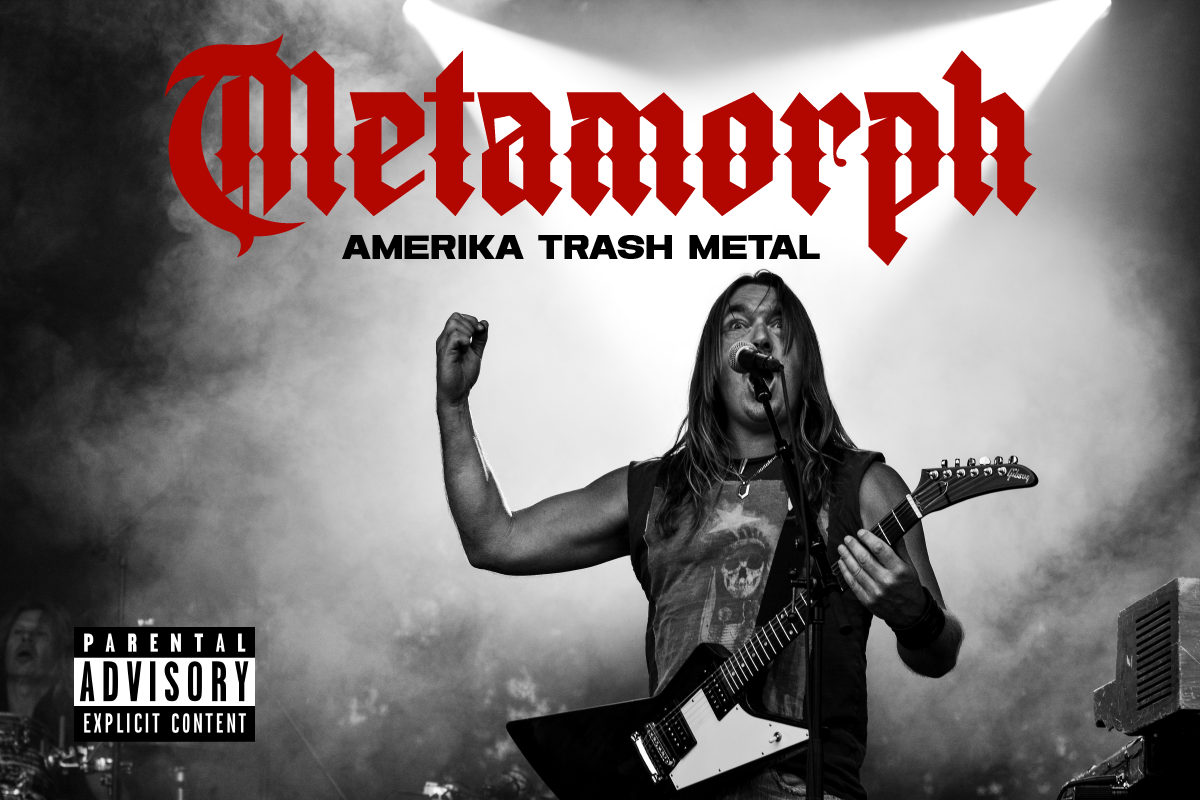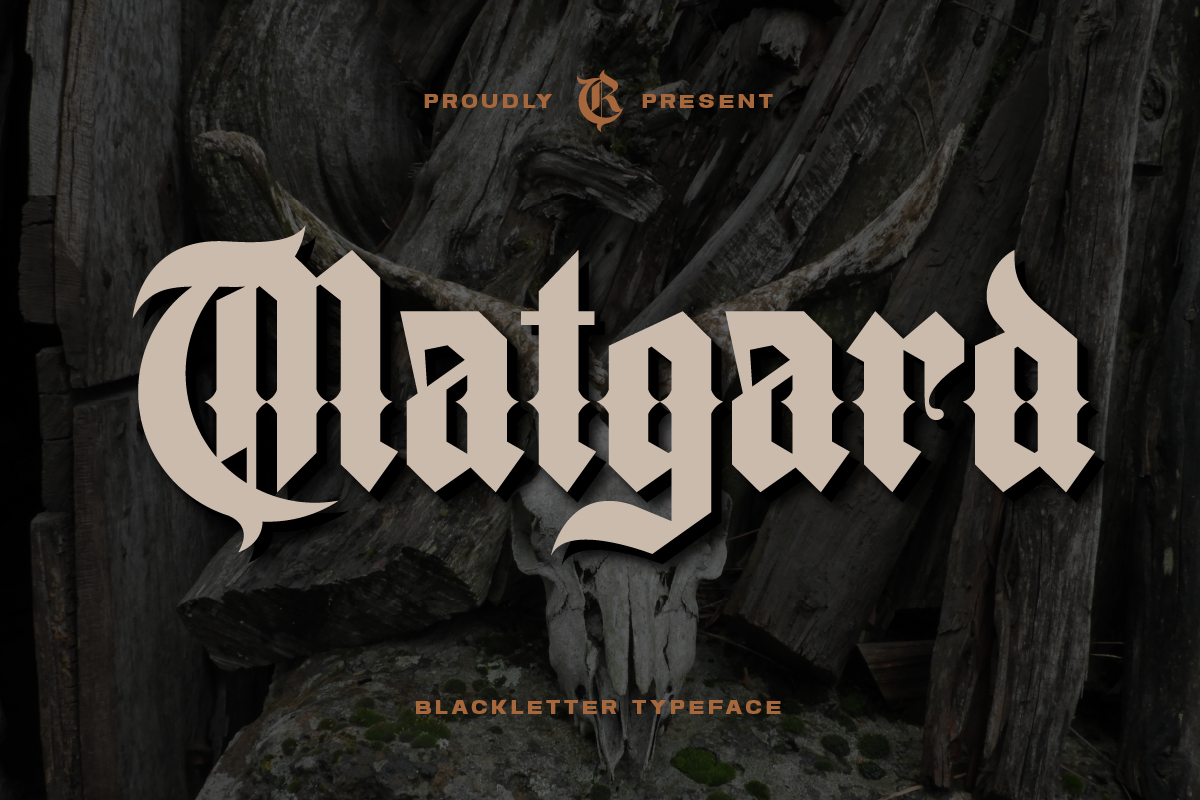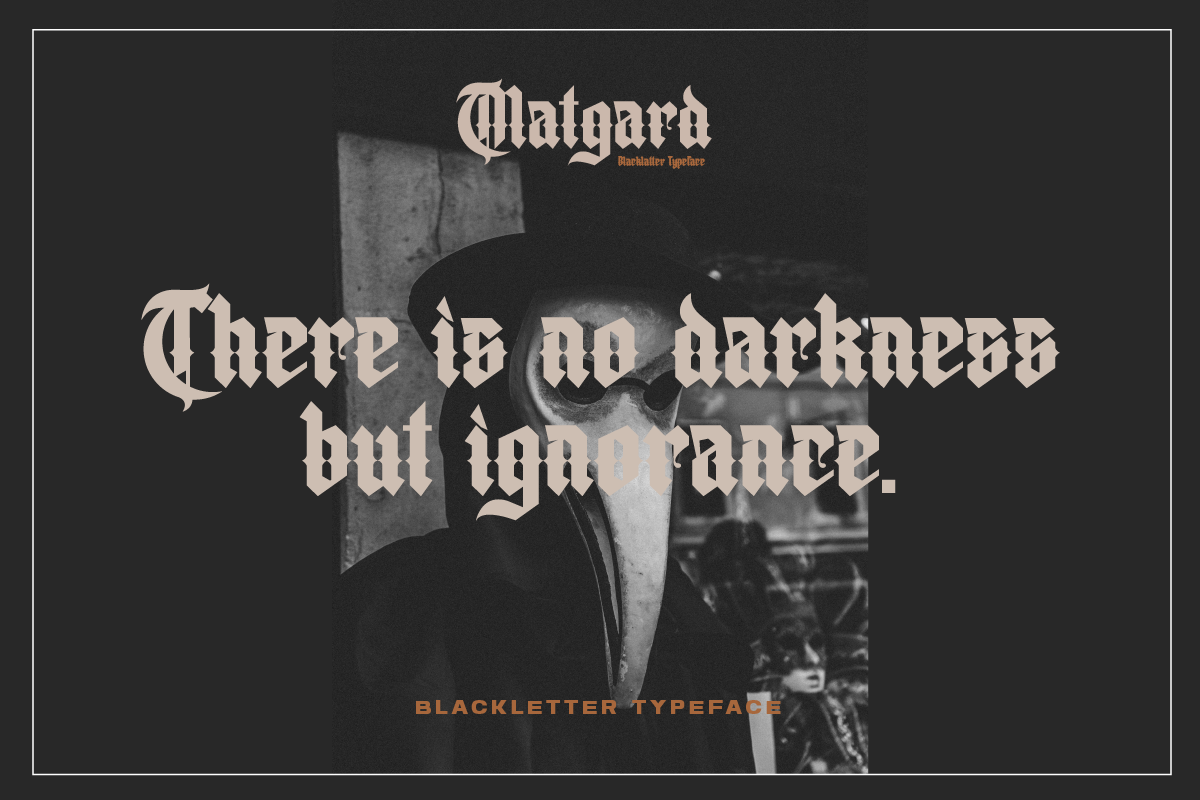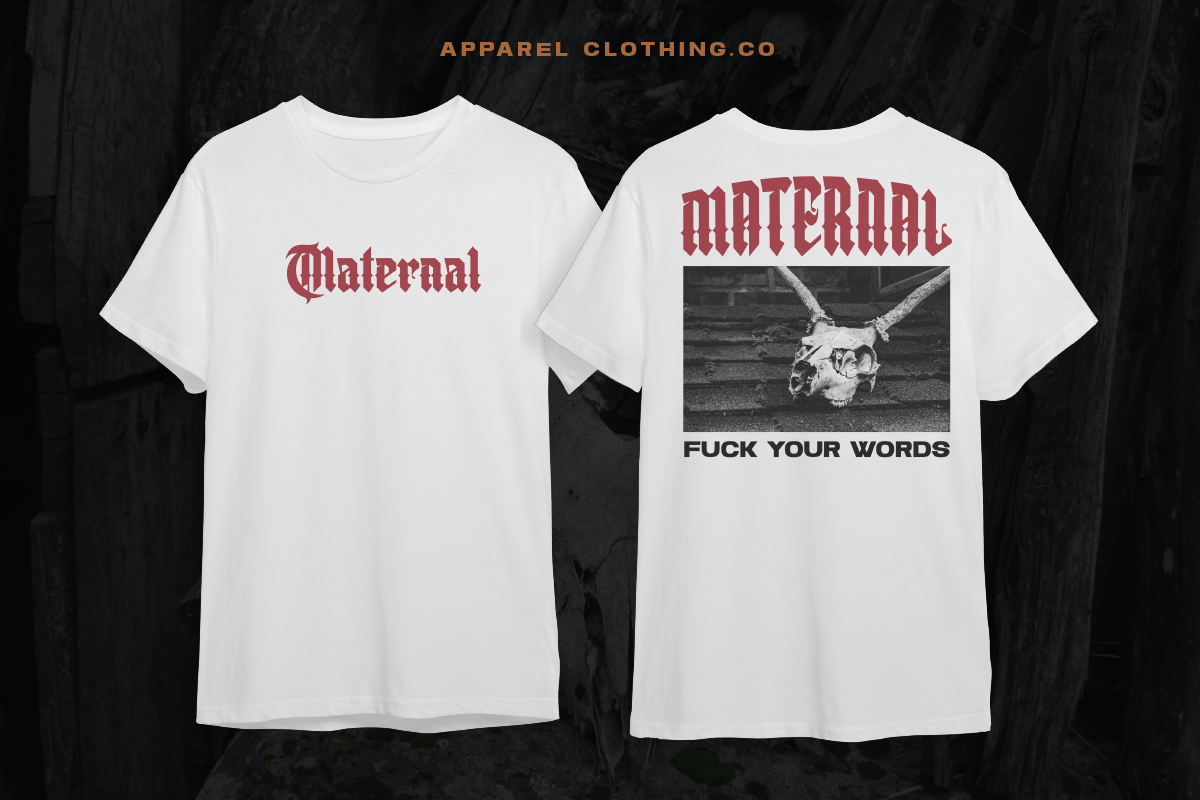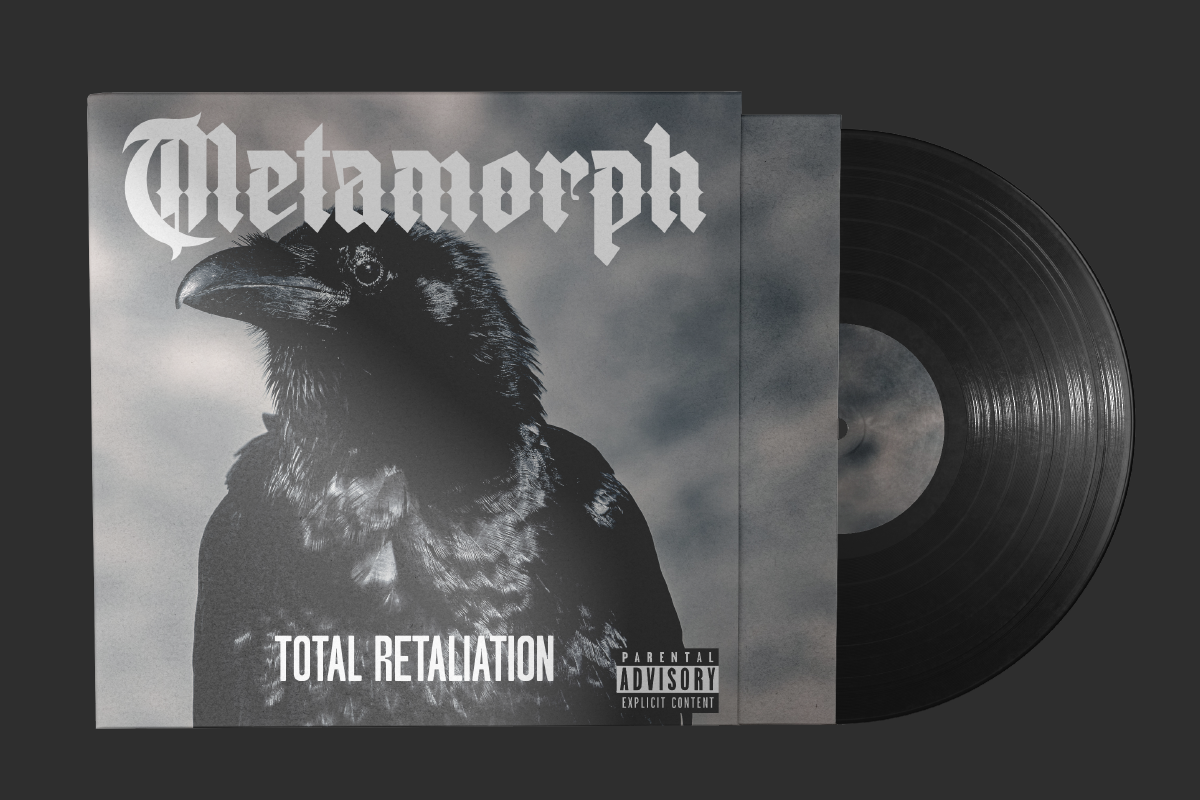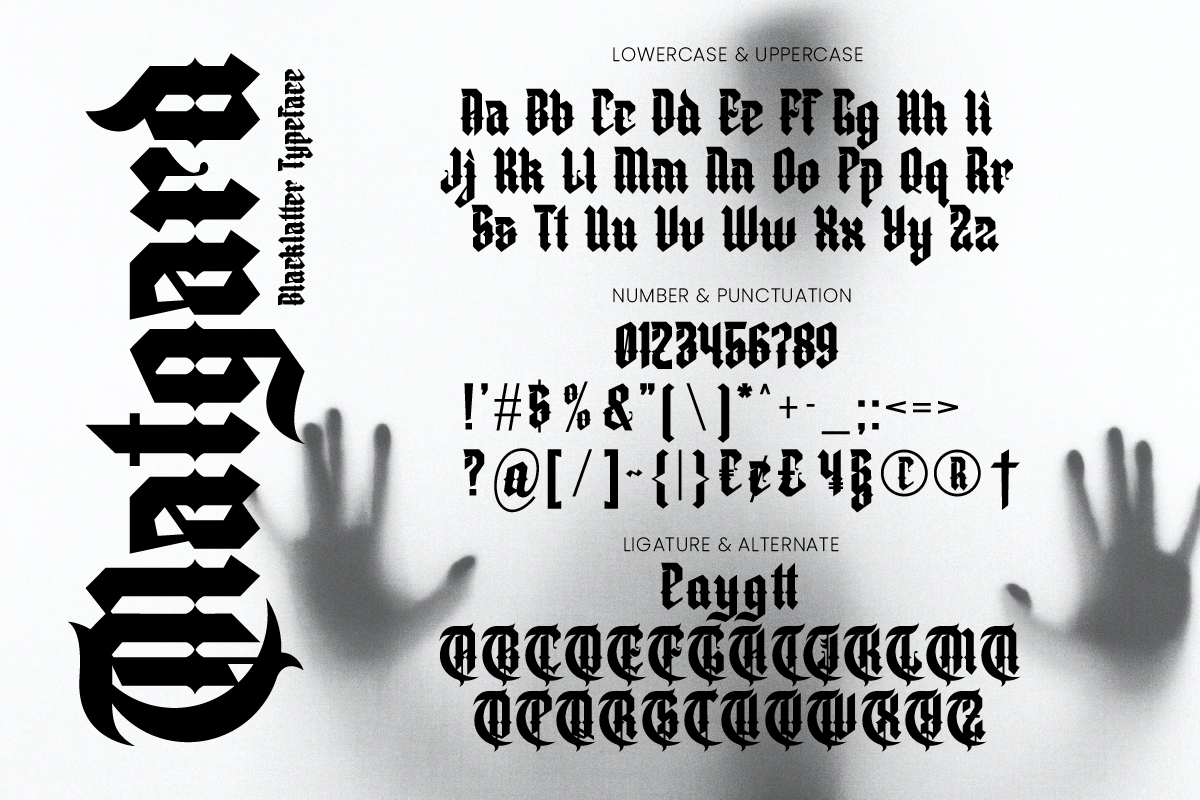
Matgard Blackletter Typeface
Matgard is a high-contrast blackletter typeface, it adds a bold touch to your projects and will inspire you to create something unique and modern. This font also comes with alternative characters, and multi-language support. This font is ideal for titles, flyers, greeting cards, product packaging, book covers, printed quotes, logotypes, clothing designs, branding and album covers.
- Lowercase & Uppercase
- ligature & alternates